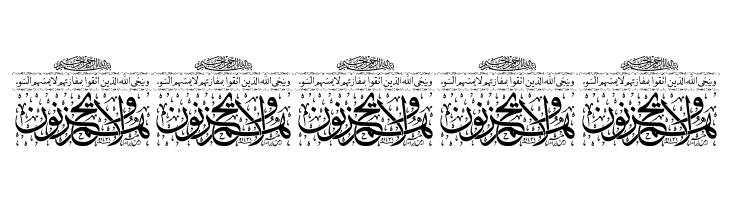
Aayat Quraan 5 Font
Intricate and elegant Arabic calligraphy with flowing lines and detailed ornamentation.
Aayat Quraan_034 Font
Ornate Arabic calligraphic script with circular, decorative motifs.
Aayat Quraan 1 Font
A traditional and decorative Arabic calligraphic script with intricate curves.
Aayat Quraan 19 Font
Ornate Arabic calligraphic script with circular and decorative motifs.
Aayat Quraan_037 Font
Highly decorative Arabic calligraphic script with religious motifs.
Aayat Quraan 17 Font
Ornate Arabic calligraphy with decorative borders and embellishments.
Aayat Quraan_039 Font
A traditional Arabic calligraphy font with intricate, flowing script and decorative elements.
Aayat Quraan 18 Font
Ornate Arabic calligraphic style with dense, decorative forms.
Aayat Quraan 29 Font
Ornate Arabic calligraphy with complex, decorative styling.
Aayat Quraan 3 Font
Ornate Arabic calligraphy with elaborate decorative elements.
Aayat Quraan_044 Font
Ornate Arabic calligraphic script with circular, decorative forms.
Aayat Quraan 21 Font
Intricate Arabic calligraphy with flowing, decorative characters.
Aayat Quraan 28 Font
Ornate Arabic calligraphy with dense, decorative styling.
Aayat Quraan 25 Font
Ornate Arabic calligraphic script with elaborate decoration.
Aayat Quraan 14 Font
Ornate Arabic calligraphic style with decorative borders.
Aayat Quraan 12 Font
Ornate Arabic calligraphic style with dense, decorative detailing.
Aayat Quraan_036 Font
Intricate and ornate Arabic calligraphy with flowing, interconnected characters.
Aayat Quraan 9 Font
Ornate Arabic calligraphic script with complex decorative elements.
Aayat Quraan 22 Font